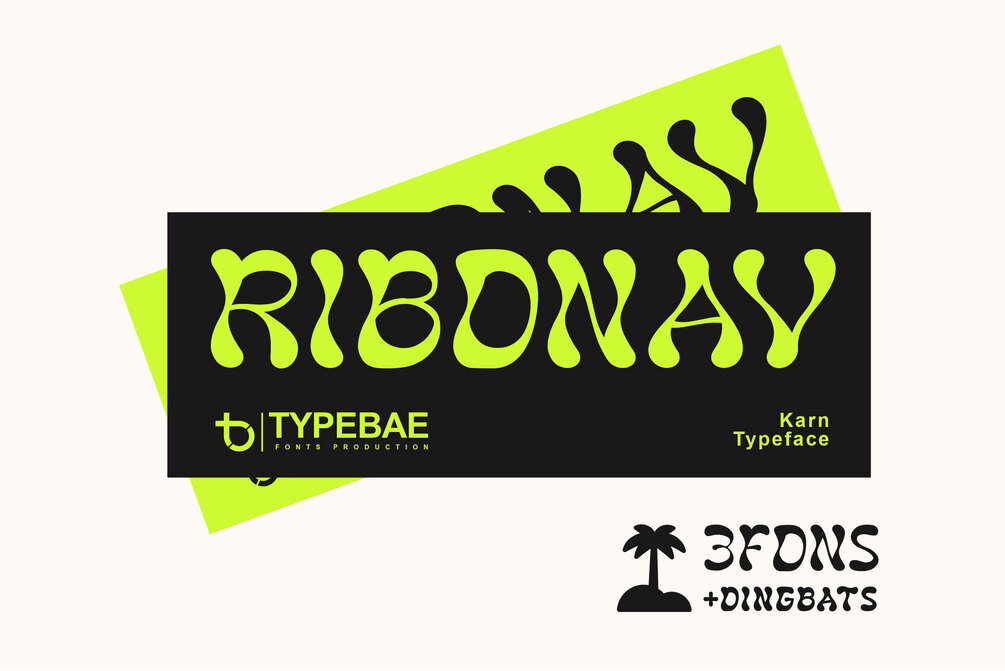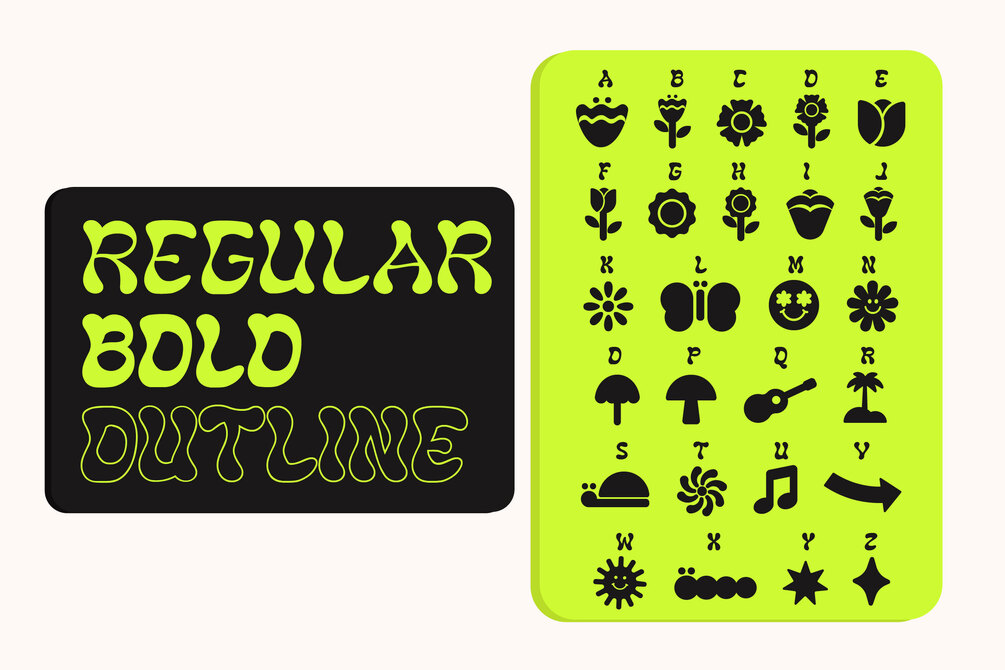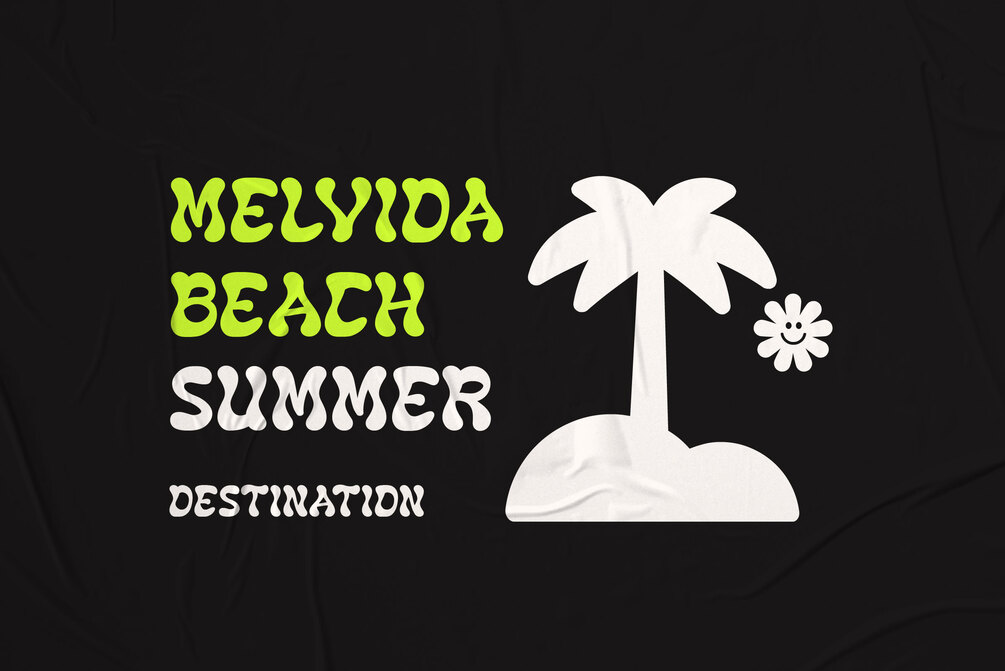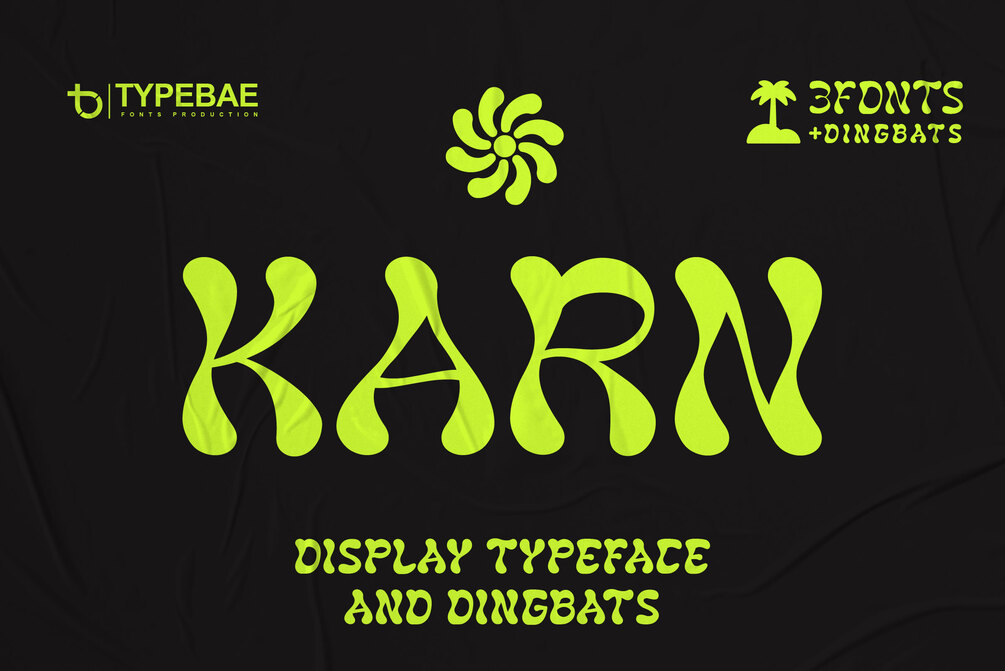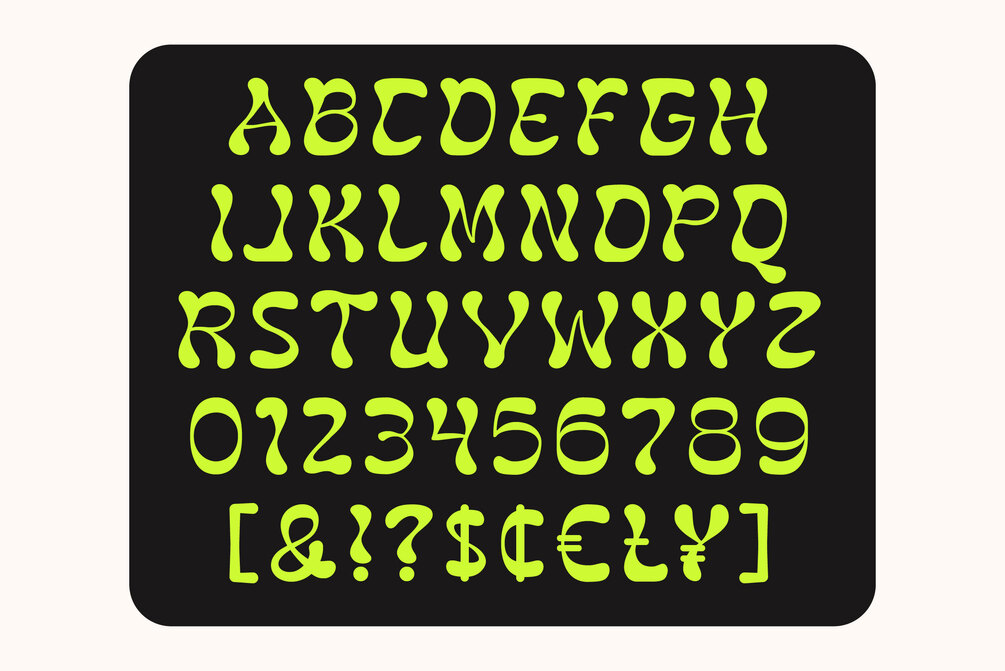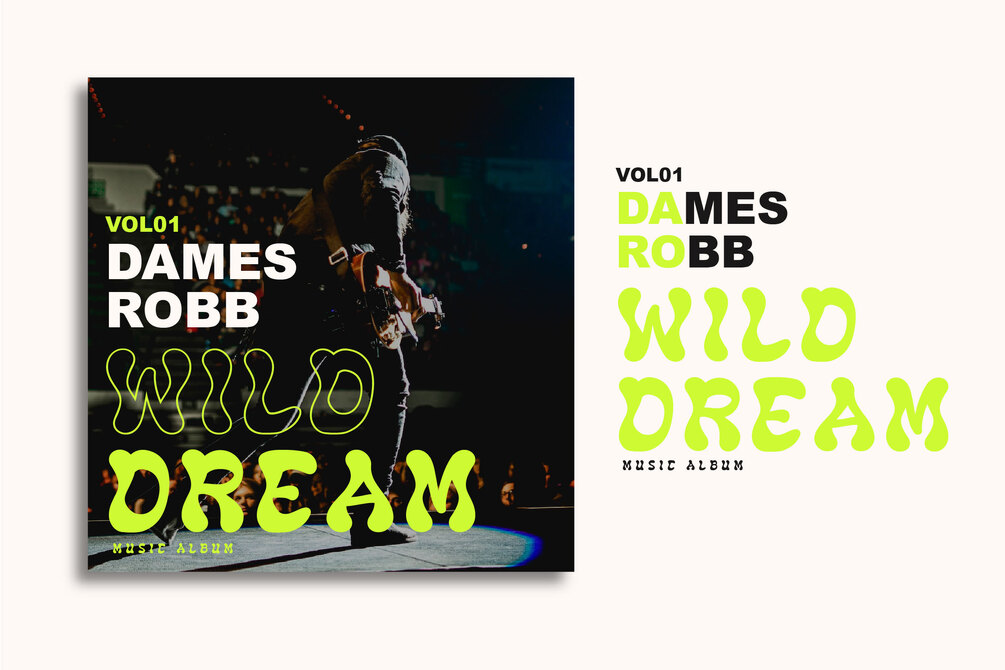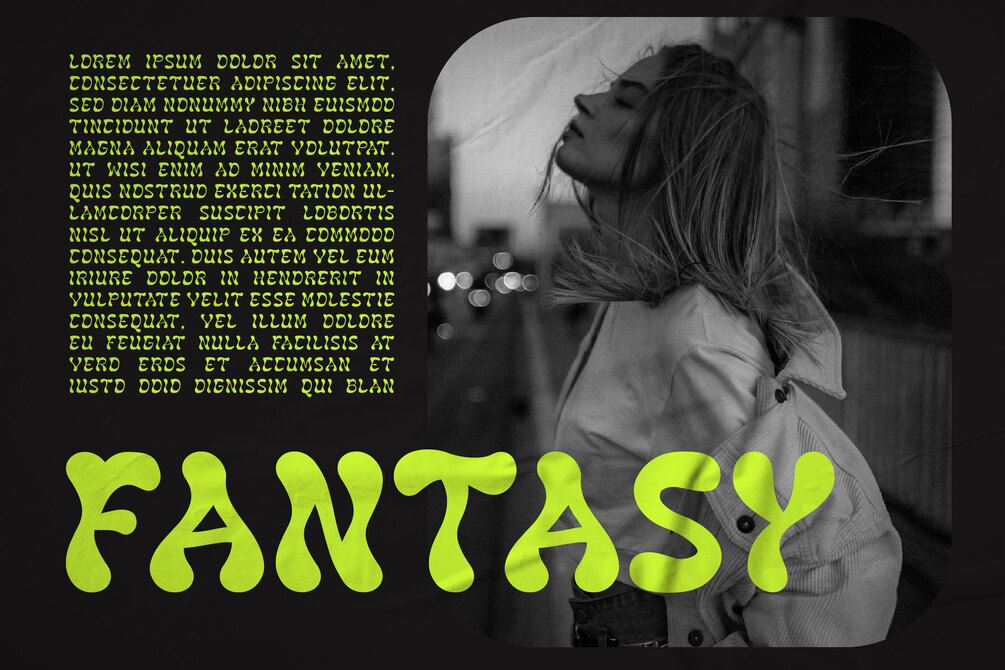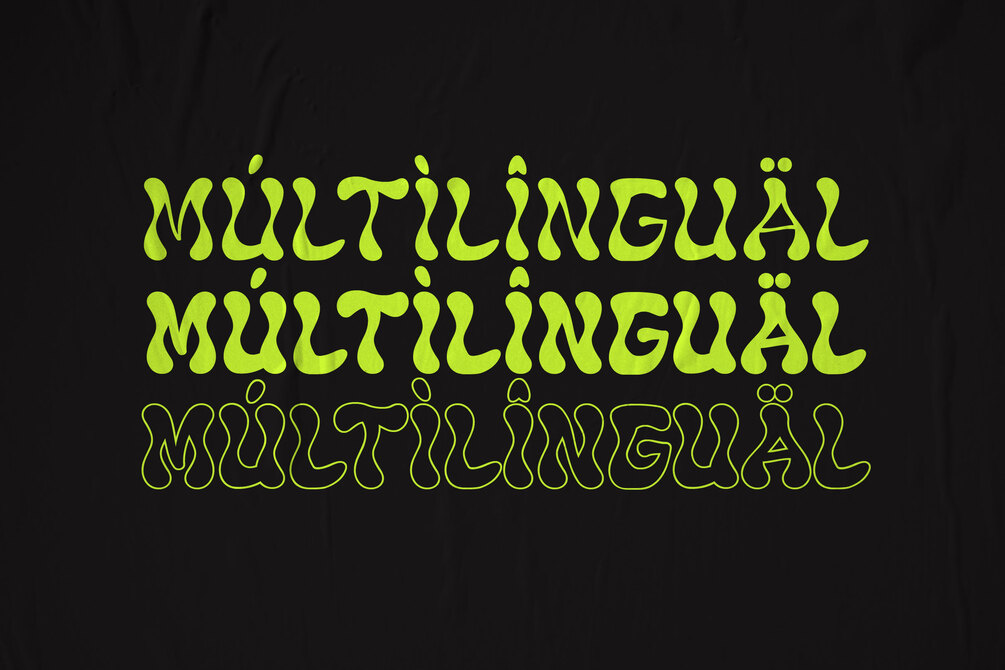
KARN
KARN is a display typeface inspired by psychedelics. Regular, bold, outline, and summer dingbats are available. Perfect for projects that require fun and creativity.